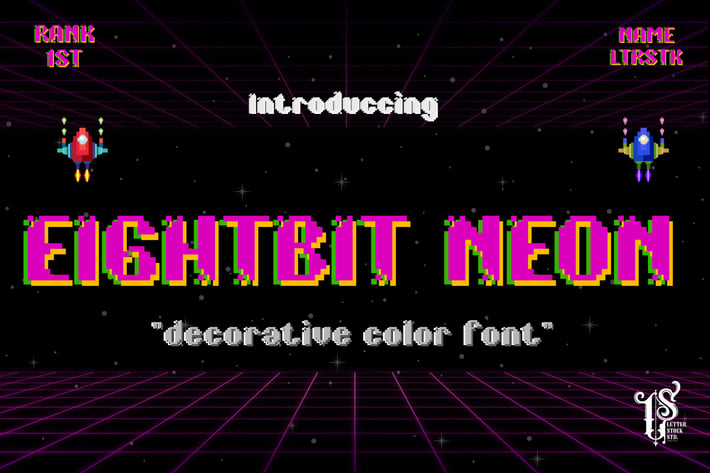
Eight-Bit Neon – Opentype SVG Color Font
Eight-bit Neon is a vibrant and colorful display monoline with retro neon style. Eight-bit Neon uses the latest OpenType-SVG font technology to capture all color gradient. The playful and striking nature of the font makes it perfect for adding punch, fun and personality to branding projects, retro games poster, magazine and editorial layouts, advertising graphics and so much more. Eight-bit Neon comprises of 172 characters as well included alternates glyphs